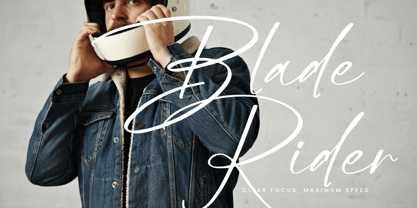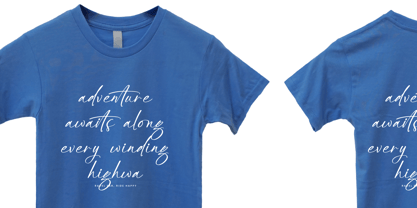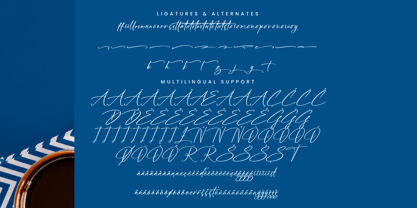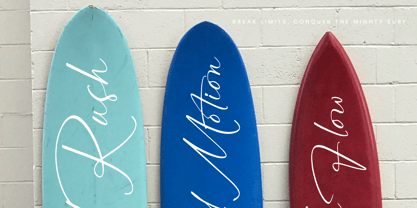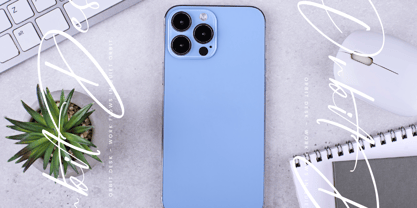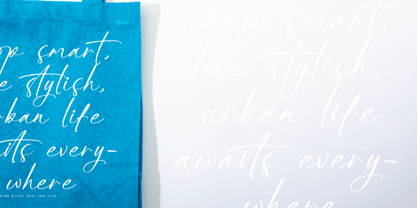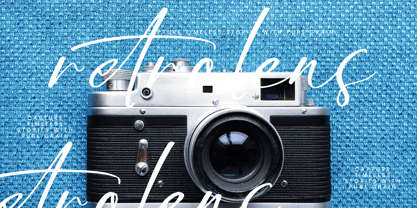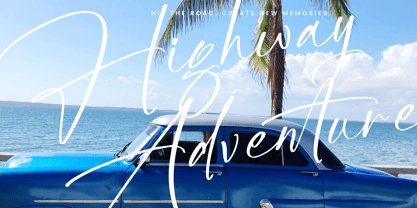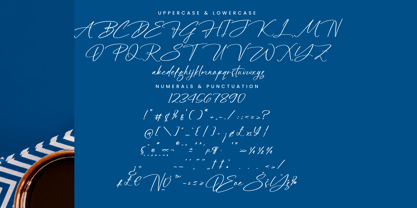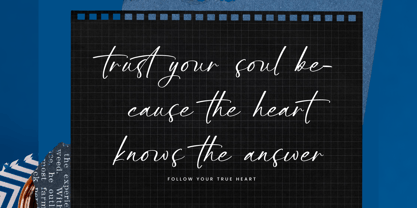
Prestiges Enternals
by Integritype
The Prestiges Enternals Font Family was designed by Ranndy Rizky Febrian and published by Integritype. Prestiges Enternals contains 2 styles.
Prestiges Enternals - Modern Signature Script Font, from Integritype Studio, perfect for any project like: logos, branding projects, homewares designs, product packaging, mugs, quotes, posters, shopping bags, t-shirts, covers books, business cards, invitation cards, greeting cards, labels, photography, watermarks, special events and all your other luxury projects that require a premium taste.